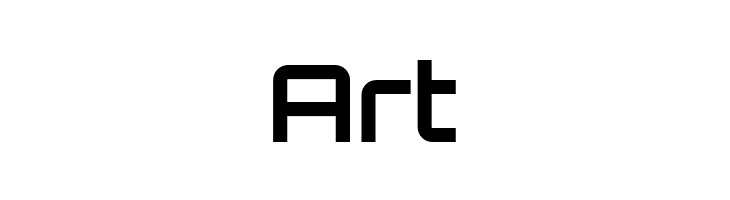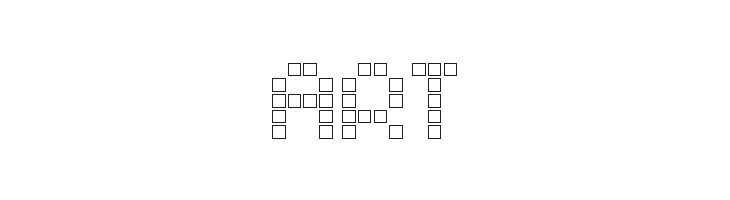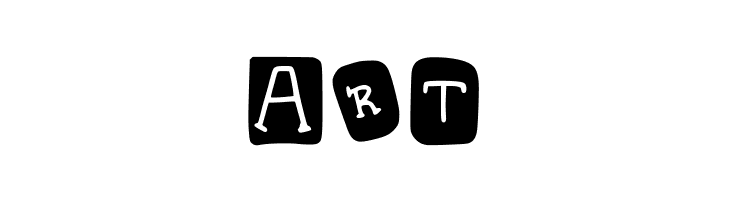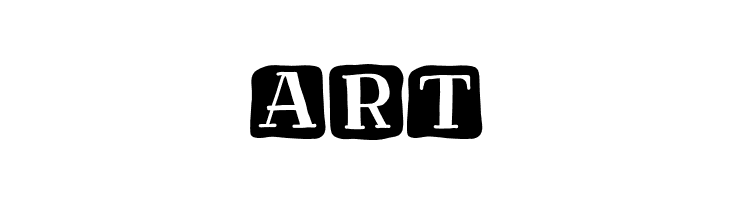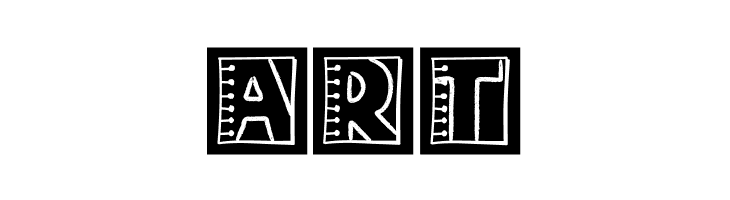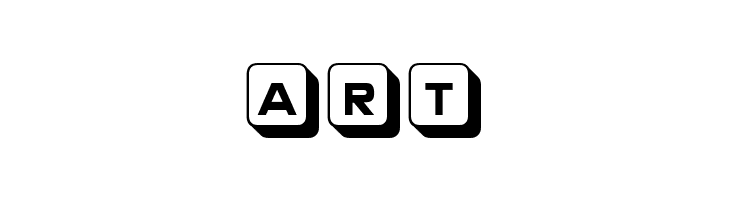
A futuristic, geometric font with bold, clean lines and squared edges.
A digital, pixelated font with outlined squares for a modern tech look.
A playful, hand-drawn font with characters in rounded squares, perfect for creative projects.
A bold, rounded font with characters enclosed in square shapes, offering a playful and modern style.
Bold, blocky font with characters enclosed in black squares.
A playful, hand-drawn font with characters enclosed in square frames.
A playful, hand-drawn font with characters in tilted squares.
Intricate floral patterns in square frames with vintage elegance.
A bold, geometric font with characters in rounded squares, evoking vintage typewriter keys.
A bold, geometric font with characters enclosed in rounded squares, offering a modern and structured look.